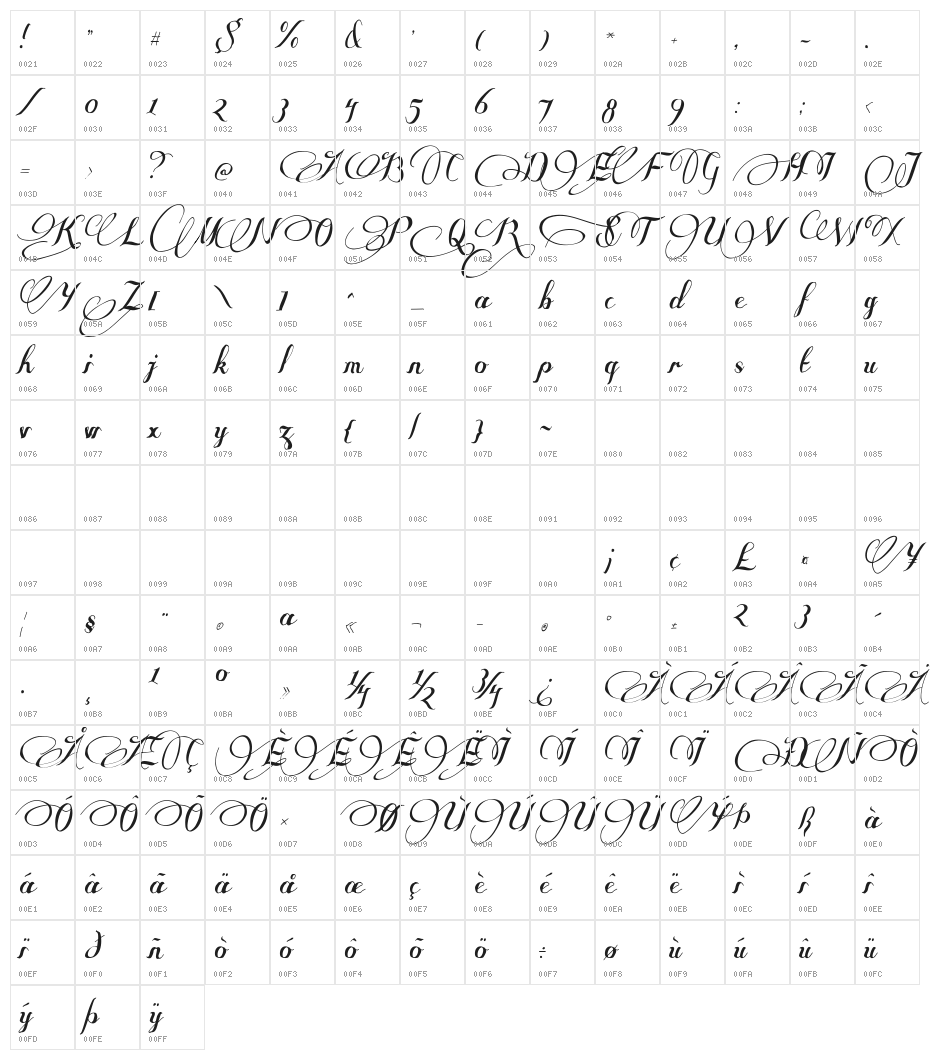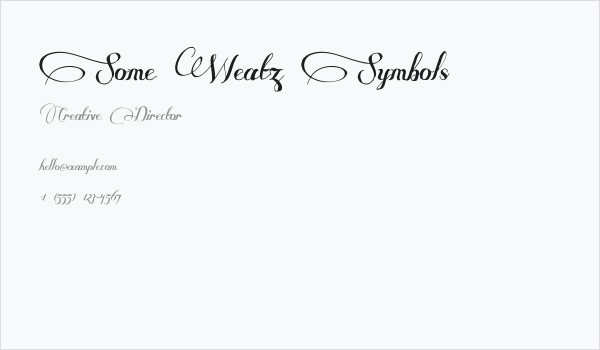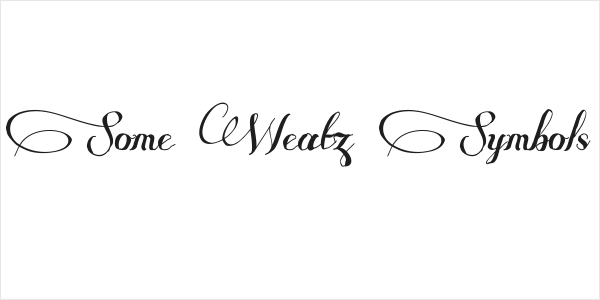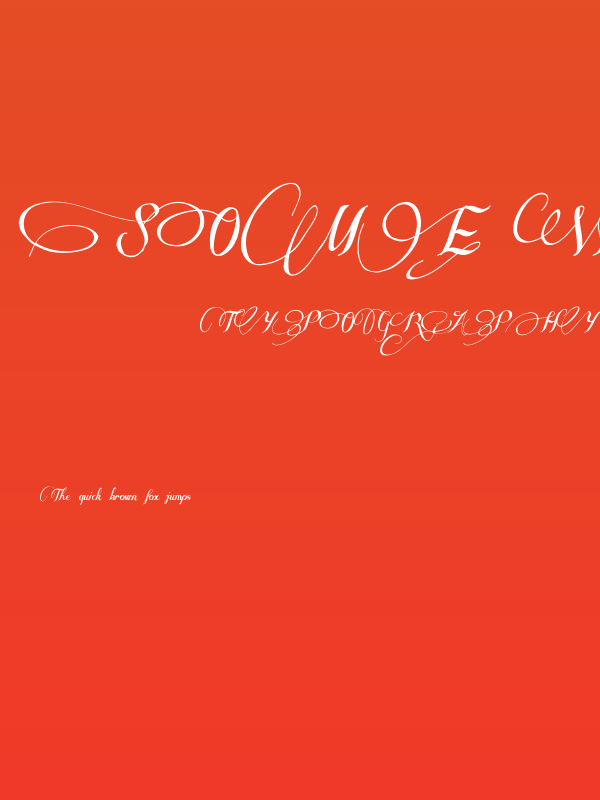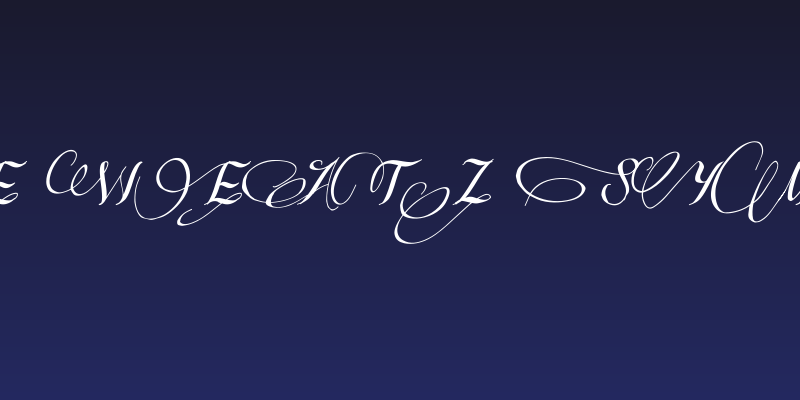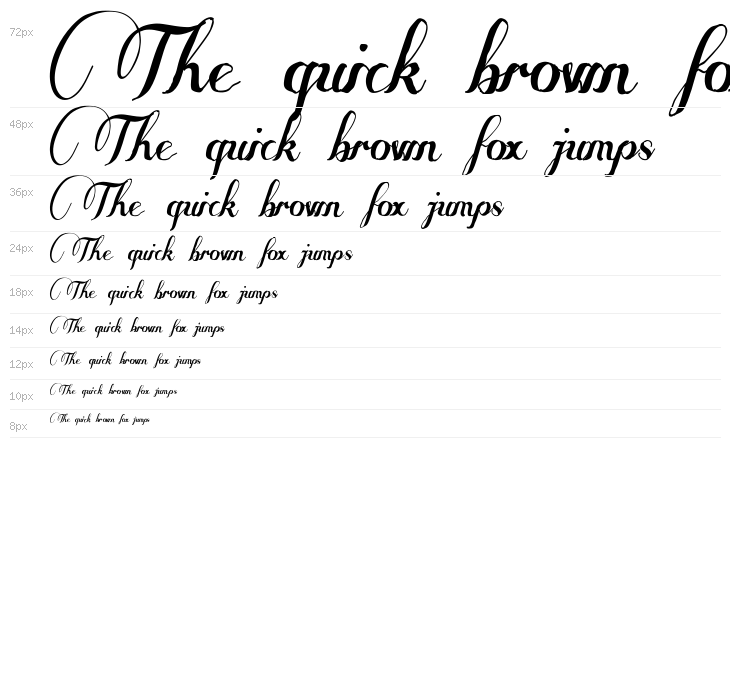
Some Weatz Symbols Font
Some Weatz Symbols Description
This font features an elegant and flowing script style, characterized by its intricate and decorative letterforms. The uppercase letters are particularly ornate, with elaborate swirls and flourishes that give them a sophisticated and artistic appearance. The lowercase letters maintain a consistent style, with smooth curves and a slightly slanted orientation, enhancing the overall fluidity of the design. The numerals are bold and dynamic, complementing the script style with their own unique flair. Special characters are equally ornate, integrating seamlessly with the rest of the font. This font exudes a sense of luxury and refinement, making it suitable for high-end design projects.
| Use Case | Logos, Invitations, Decorative Text |
| Proposed Projects | Ideal for wedding invitations, luxury branding, elegant stationery, and artistic posters. |